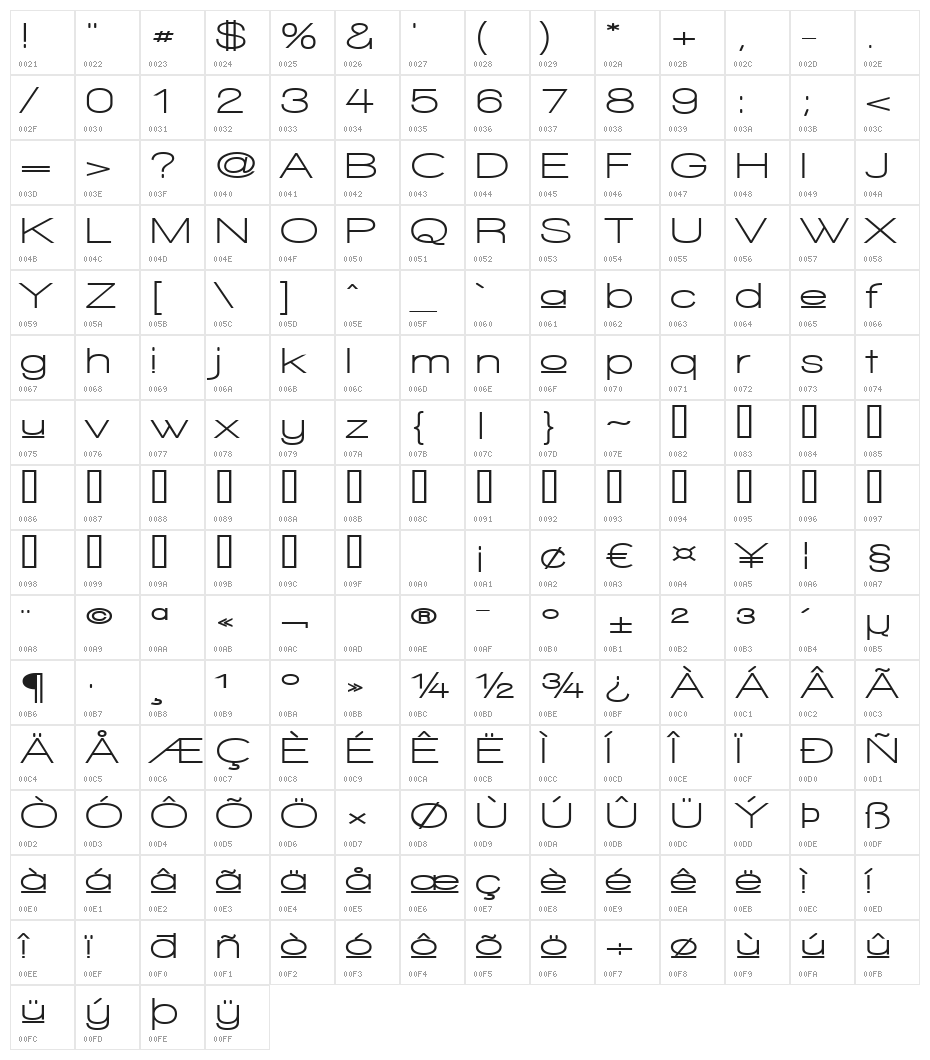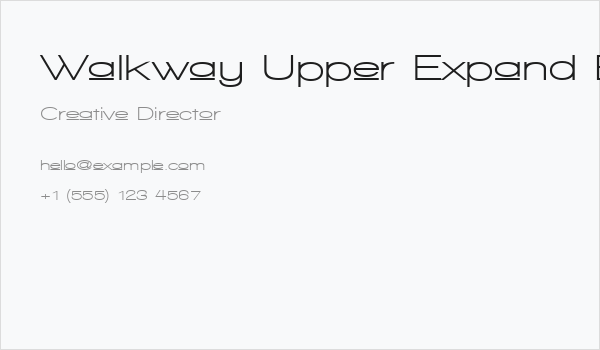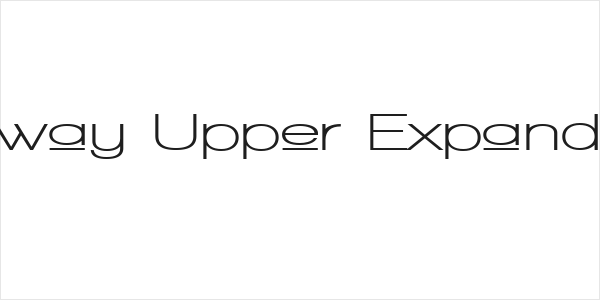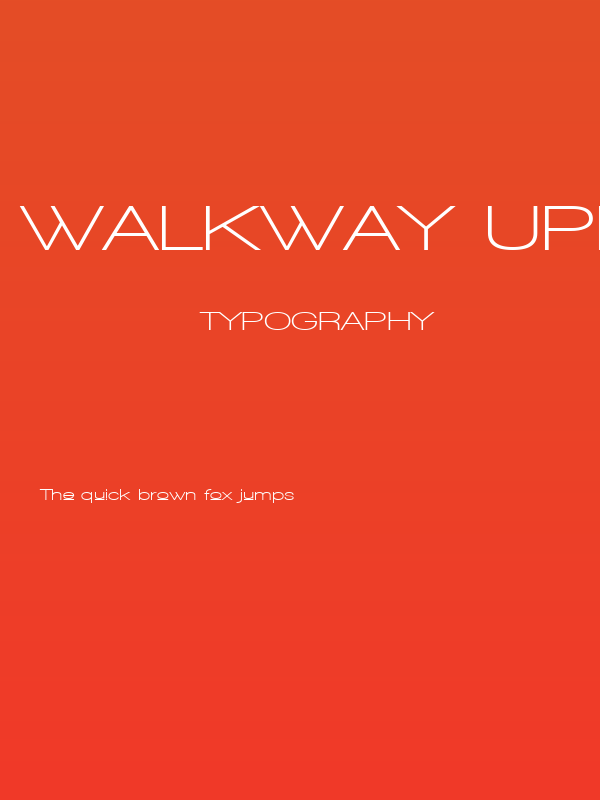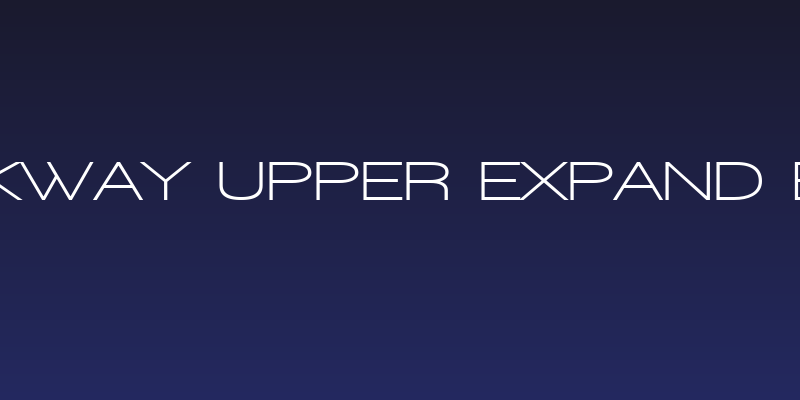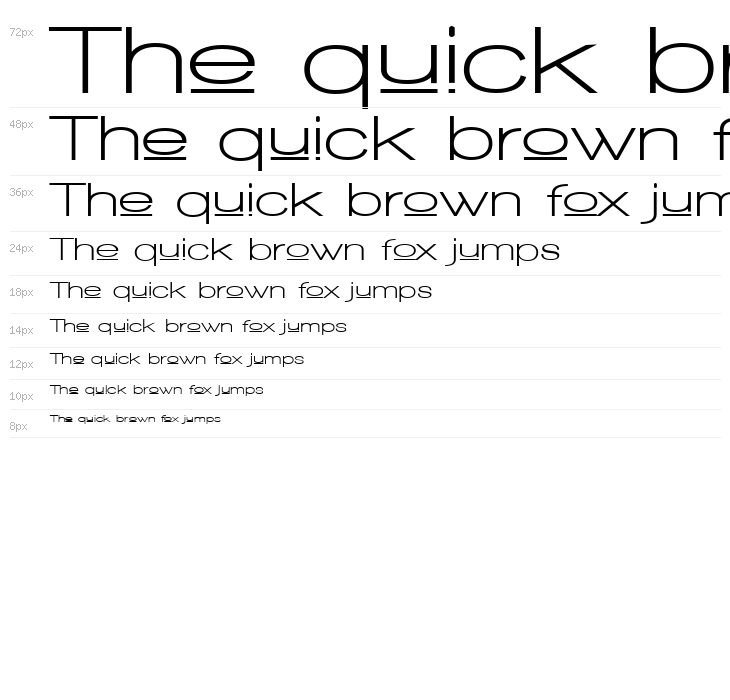
Walkway Upper Expand Bold Font
Walkway Upper Expand Bold Description
This font features a clean, geometric design with a modern aesthetic. The characters are constructed with uniform line thickness, giving it a sleek and contemporary look. The uppercase and lowercase letters maintain a consistent style, with rounded edges and a spacious layout. The numerals are clear and easy to read, matching the overall design of the alphabet. Special characters are included, maintaining the same geometric and minimalistic style. This font is well-suited for projects that require a modern and professional appearance.
| Proposed Projects | Ideal for branding, advertising, web design, and editorial layouts that require a modern touch. |